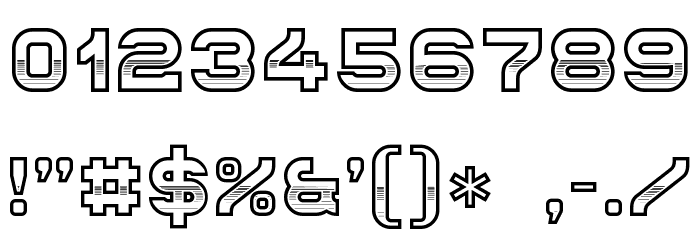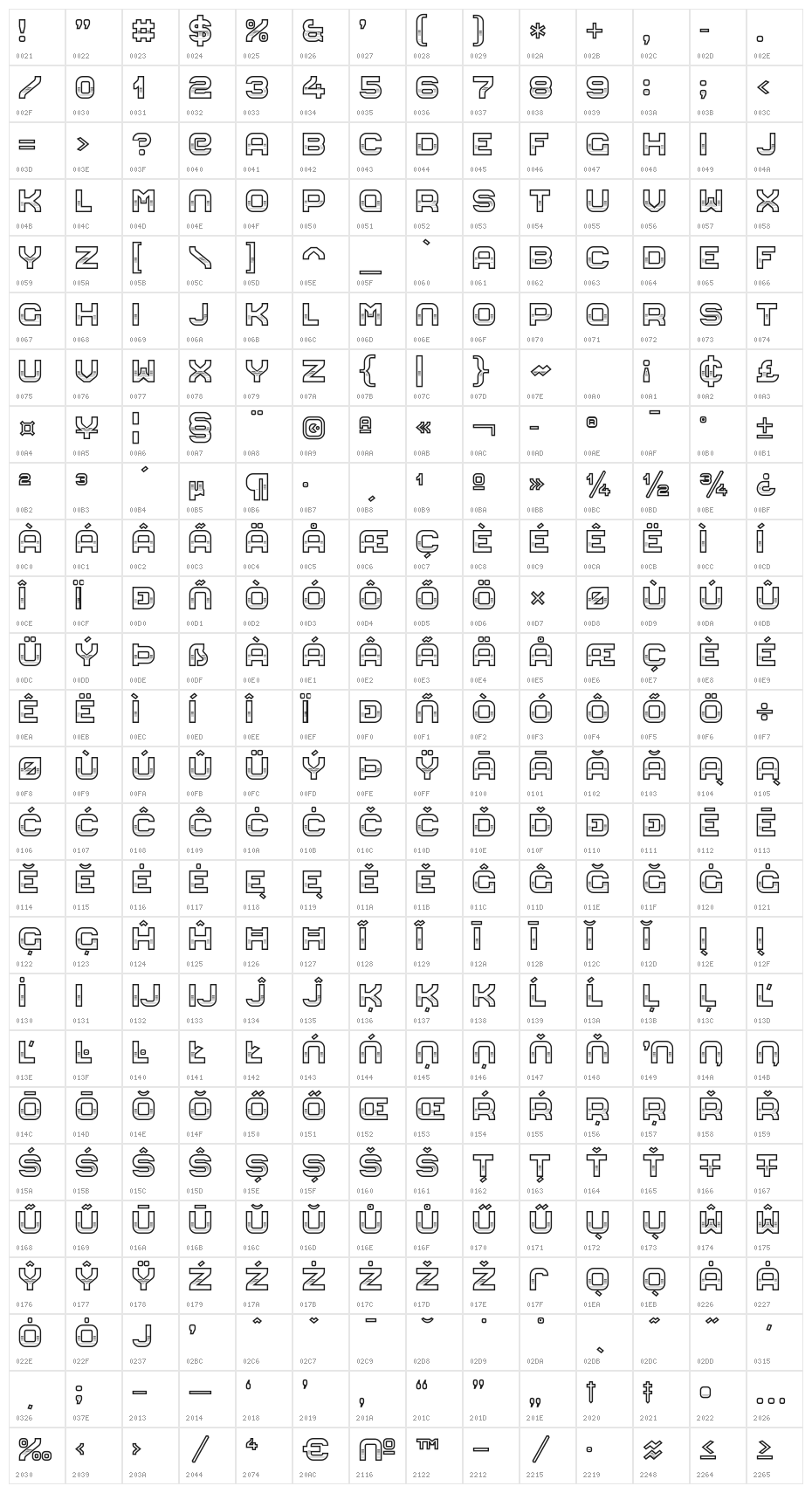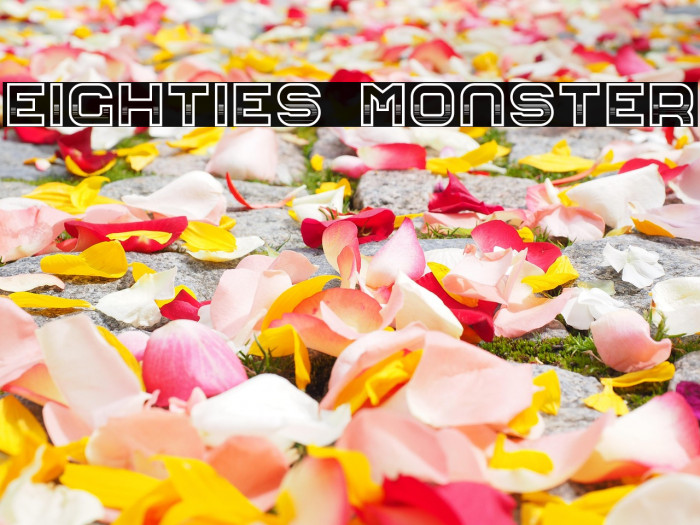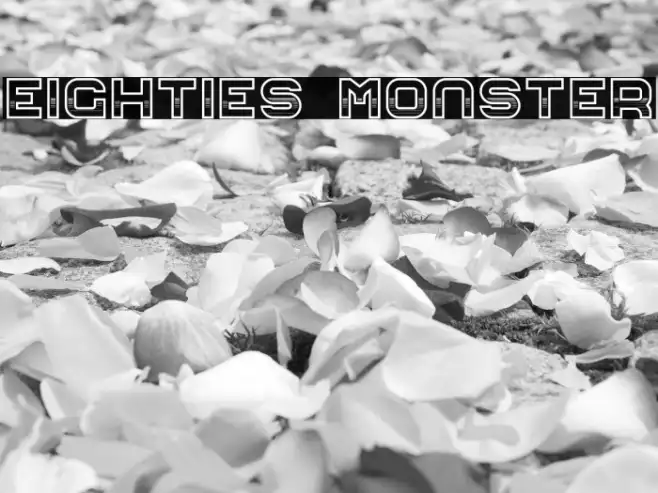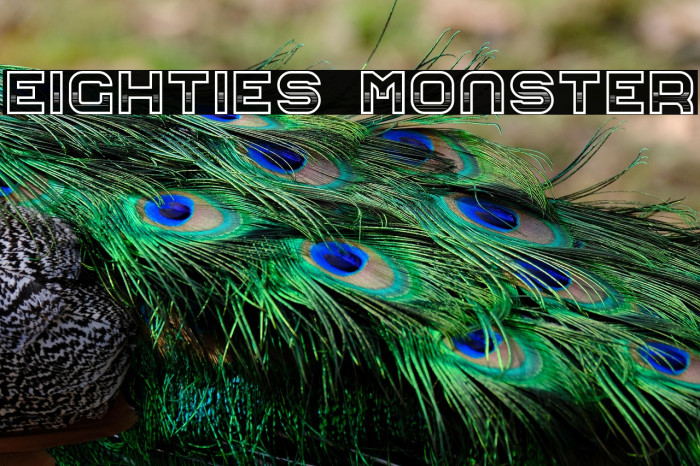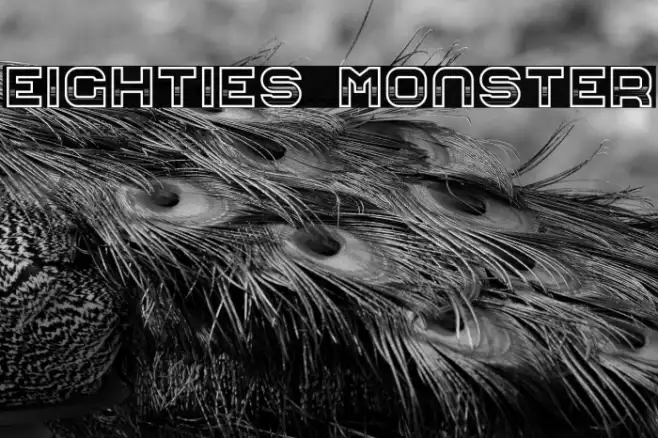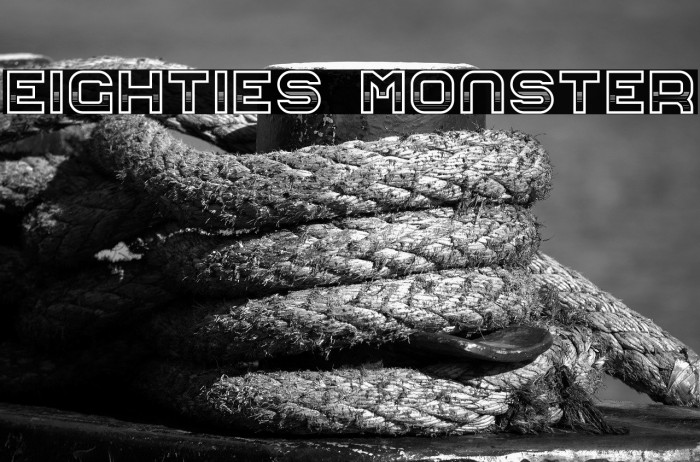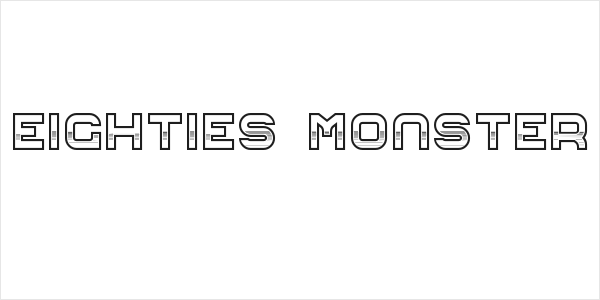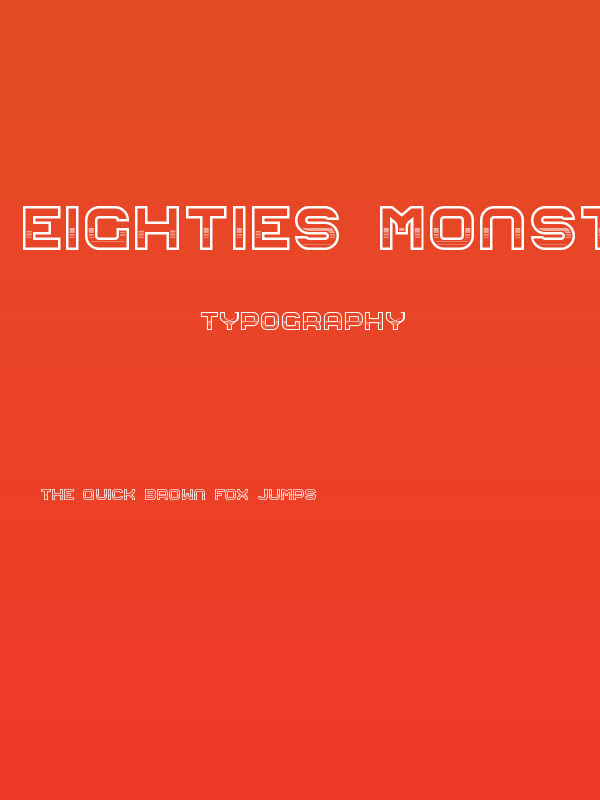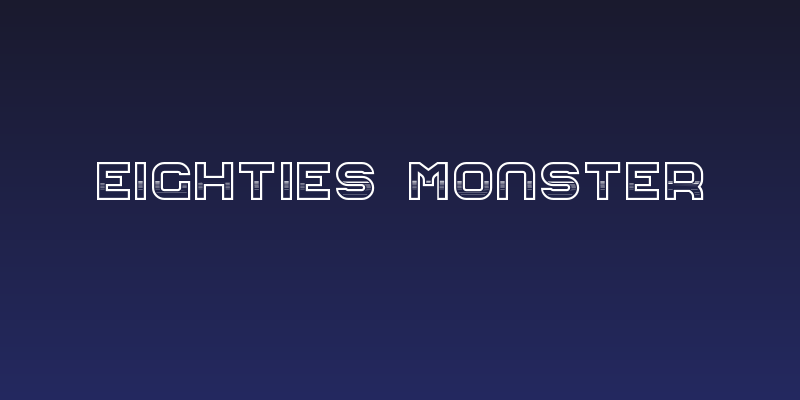
Eighties Monster Font
Eighties Monster Description
This font features a bold, geometric design with a distinct retro flair reminiscent of the 1980s. The characters are outlined with a double line, creating a three-dimensional effect that adds depth and visual interest. The uppercase and lowercase letters maintain a consistent style, with sharp angles and clean lines. The numerals and special characters follow the same aesthetic, ensuring a cohesive look across all text. This font's unique style makes it stand out, ideal for projects that require a touch of nostalgia and boldness.
| Overall Style | Retro, Decorative |
| Proposed Projects | Ideal for retro-themed posters, video game graphics, branding for vintage-inspired products, and eye-catching headlines. |